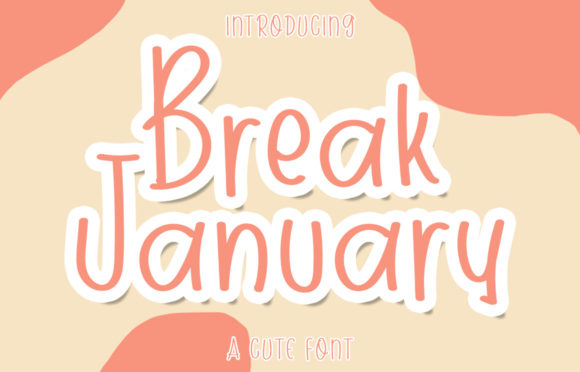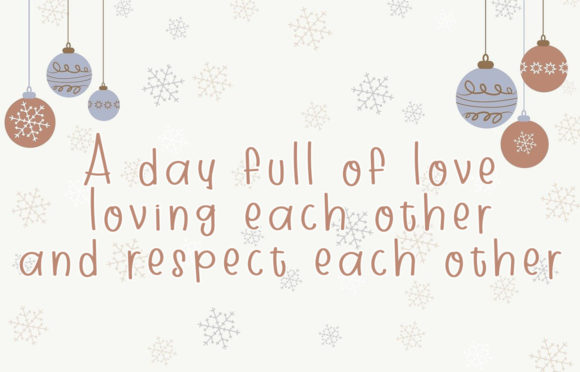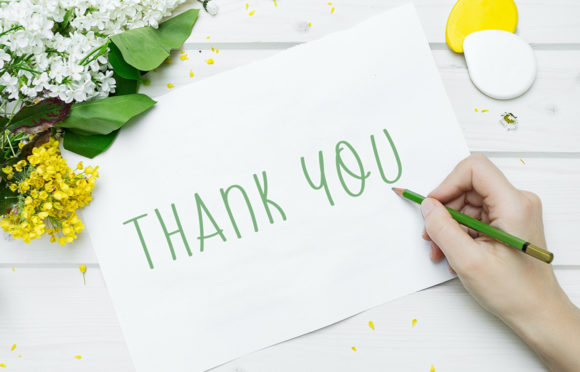
Break January Font
About Break January Font
Break January is a beautiful and sweet font. It is fresh, clean, and elegant. This font will look amazing in a great number of projects, both formal and informal. This font is great for logos, badges, clothing, posters, and more.